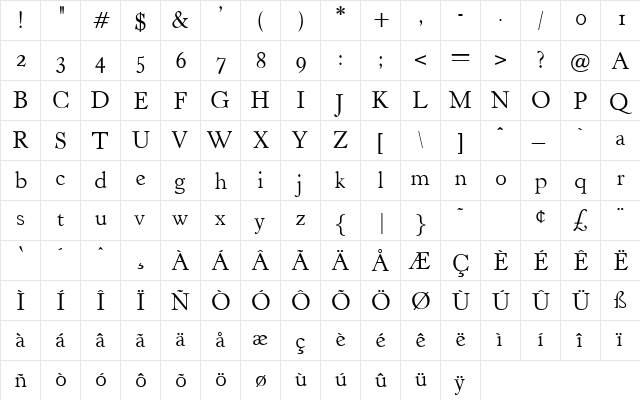
Houghton Regular
Design Context for Houghton Typeface
Houghton takes a measured approach to typography — its balanced proportions and neutral character make it a reliable workhorse for both digital and print work.